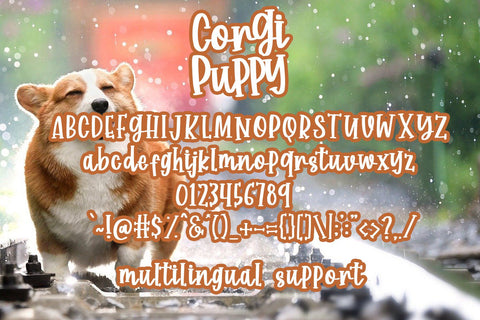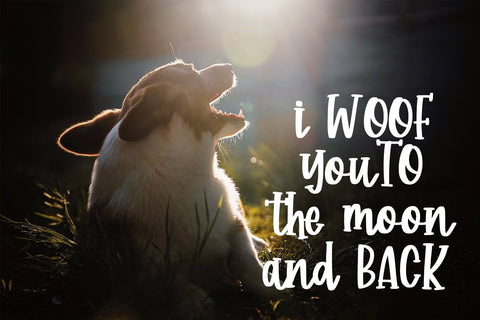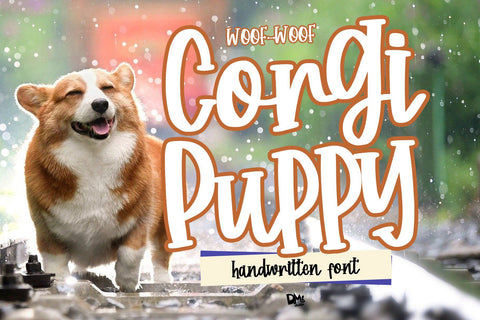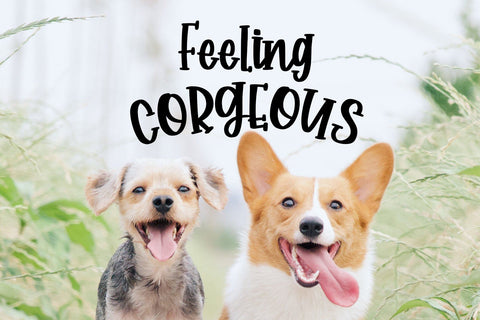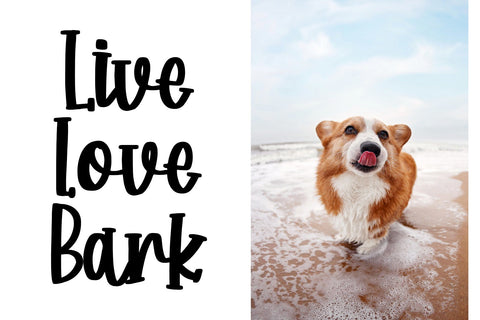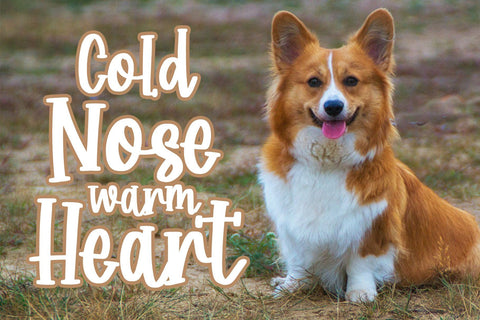
Corgi Puppy - Handwritten Font
Corgi Puppy
Woof-woof!
Quirky, fun but lovely handwritten font, suitable for your crafty design!
- lowercase
- numerics
- symbols